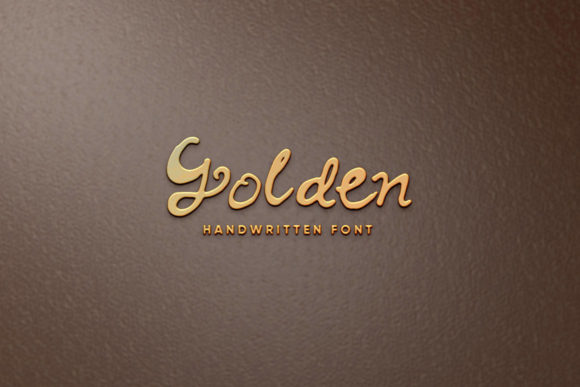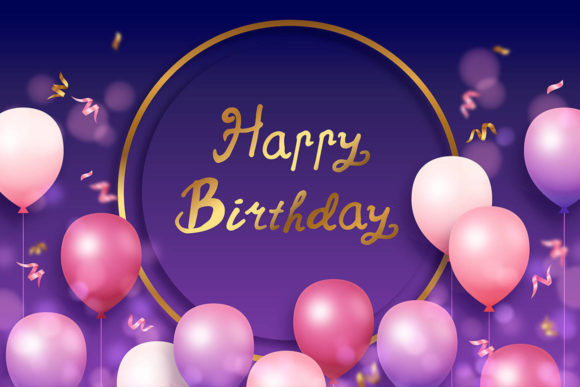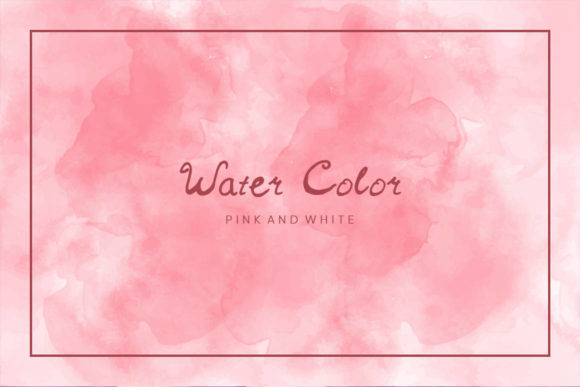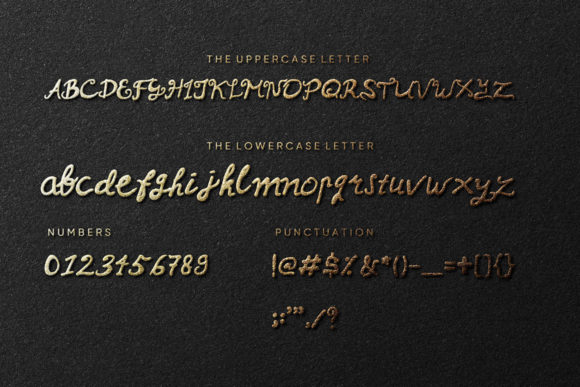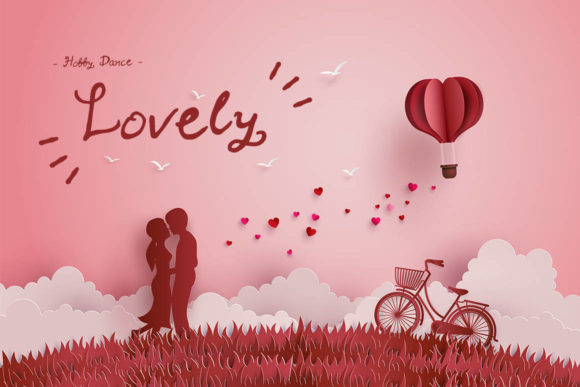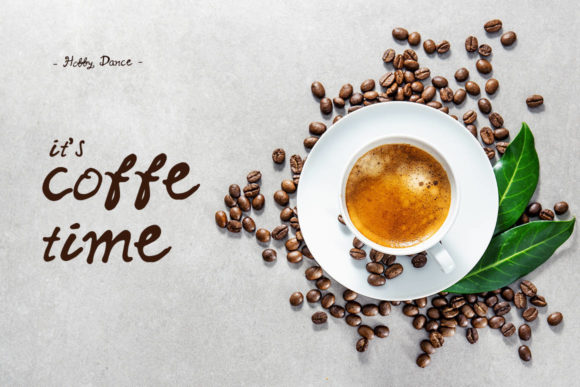
Hobby Dance Font
About Hobby Dance Font
Hobby Dance is an exquisite and one-of-a-kind handwritten font that showcases a captivating and beautiful style. Its uniqueness and charm make it a perfect choice for various design projects, adding a touch of elegance and personality to each one. Here are some fantastic ways you can use Hobby Dance to create stunning and memorable designs:
1. Wedding Invitations: Design captivating and romantic wedding invitations with Hobby Dance, setting the tone for a special and unforgettable celebration.
2. Thank You Cards: Craft heartfelt thank you cards using Hobby Dance, expressing gratitude and warmth in a beautifully handwritten style.
3. Quotes and Typography Art: Create inspiring quote graphics and typography art with Hobby Dance, showcasing meaningful messages in a visually appealing manner.
4. Greeting Cards: Use Hobby Dance to design unique and stylish greeting cards for various occasions, from birthdays to holidays.
5. Branding and Logos: Apply Hobby Dance to branding materials and logos, adding a personal and artistic touch to your brand identity.
6. Business Cards: Design eye-catching business cards with Hobby Dance, leaving a lasting impression on potential clients or customers.
7. Social Media Graphics: Create engaging social media graphics and posts with Hobby Dance, captivating your audience with its unique and beautiful lettering.
8. Personal Stationery: Use Hobby Dance for personal stationery, adding a touch of sophistication and charm to your letters and notes.
9. Artistic Projects: Embrace Hobby Dance for creative art projects, such as hand-lettered illustrations or mixed-media designs.
10. Party Invitations: Design fun and stylish party invitations with Hobby Dance, creating excitement and anticipation for your events.
11. Product Packaging: Apply Hobby Dance to product packaging, giving your items a distinct and artistic flair that stands out on the shelves.
12. Craft Projects: Use Hobby Dance for various craft projects, from DIY home decor to handmade gifts.
13. Fine Art Prints: Create elegant fine art prints with Hobby Dance, offering unique and beautiful artwork to your customers.
14. Book Covers: Design book covers with Hobby Dance for novels, poetry collections, or any publication that requires an artistic and personal touch.
15. Personal Projects: Incorporate Hobby Dance into personal projects, such as scrapbooking or journaling, adding a creative and expressive element.
With its mesmerizing and distinct style, Hobby Dance has the power to elevate your designs and make them truly memorable. Its versatility allows it to adapt to various themes and purposes, making it suitable for a wide range of creative projects. Whether you’re designing for weddings, events, branding, or personal expression, Hobby Dance will bring a unique and beautiful handwritten touch that captivates and delights. Let Hobby Dance dance its way into your font collection and become a cherished favorite for all your design endeavors.